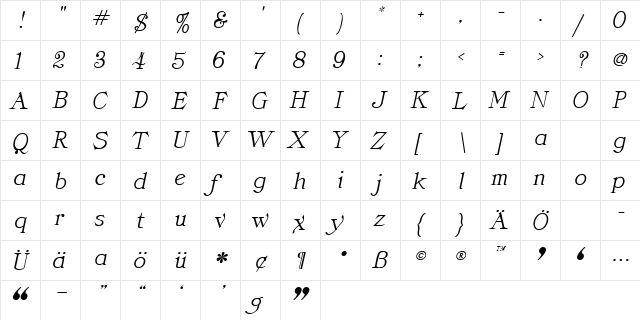
Design Context for ClassicaItalic.fog Typeface
ClassicaItalic.fog wears its vintage influences proudly, with letterforms that recall mid-century signage, classic packaging, and nostalgia-driven design. The dynamic lean of this cut emphasises speed and emphasis in any layout.
Font Pairing: Combine ClassicaItalic.fog with a simple slab or neutral sans — period-accurate companions reinforce the vintage feel without competing for attention.
Pro Tip: Lean into ClassicaItalic.fog's period character by pairing it with aged paper textures, muted colour palettes, and vintage illustration styles.